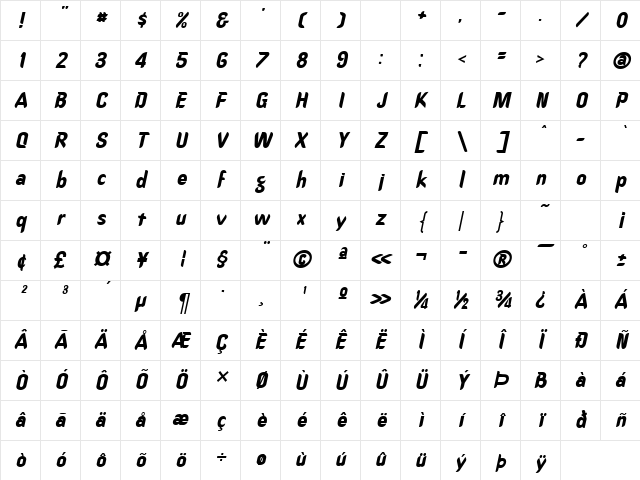
Complete Callimarker Italic glyph index. Displaying only characters natively supported by Callimarker Italic font.
Callimarker is a composed and adaptable typeface that performs quietly and consistently across a wide range of design contexts. The slanted form adds forward momentum and visual energy.